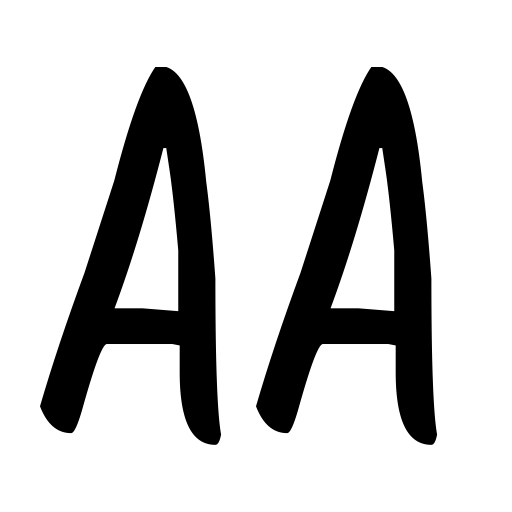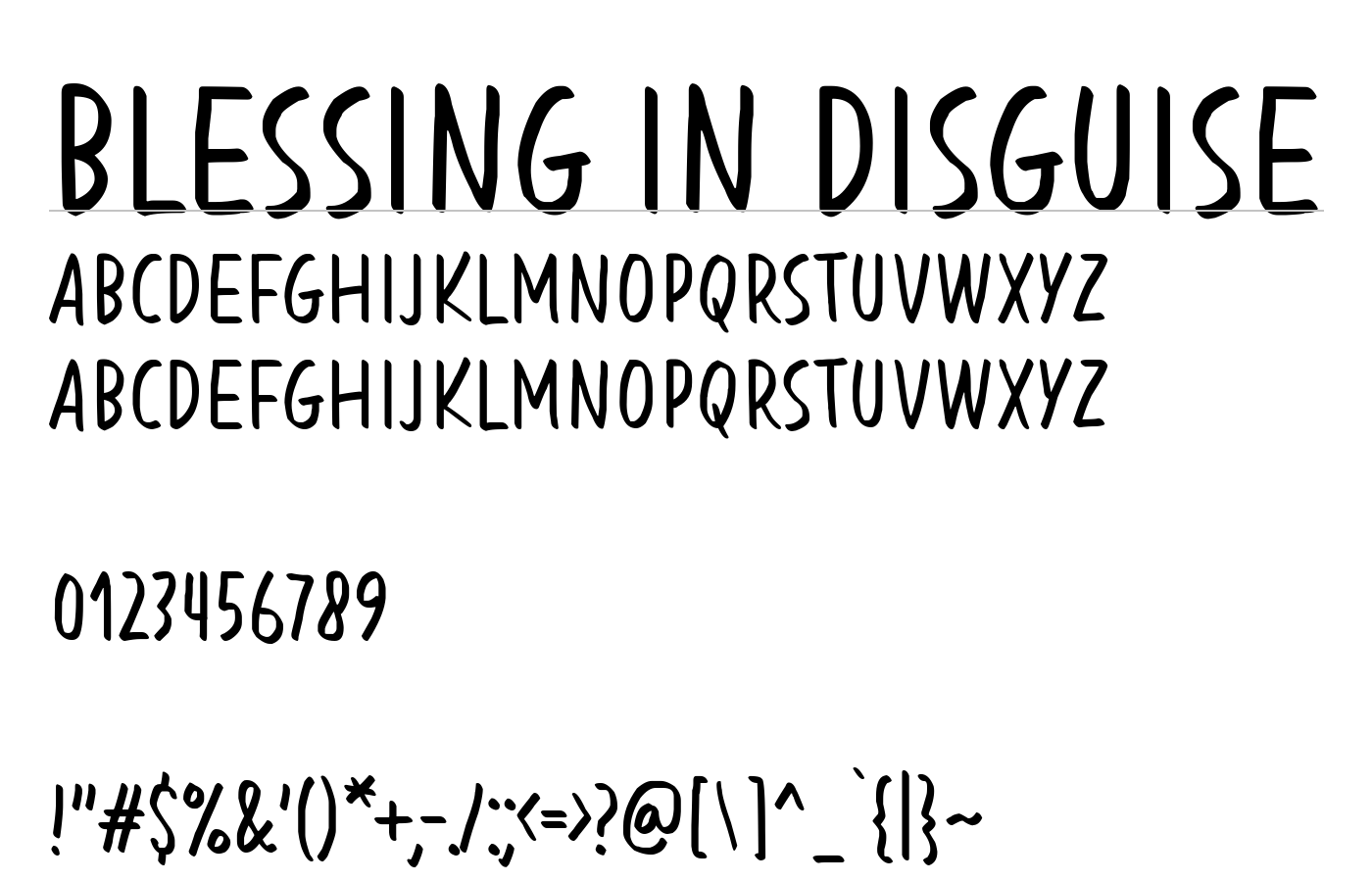
Blessing in Disguise is a playful, hand-drawn sans serif font with tall, narrow letterforms and a casual, slightly irregular stroke that gives it a friendly and approachable feel. Its lightweight, condensed structure and simple shapes make it ideal for informal branding, greeting cards, and creative projects seeking a personal touch. This font works well in headlines and display uses where a warm, handmade aesthetic is desired.
Blessing in Disguise Font
About Blessing in Disguise Font